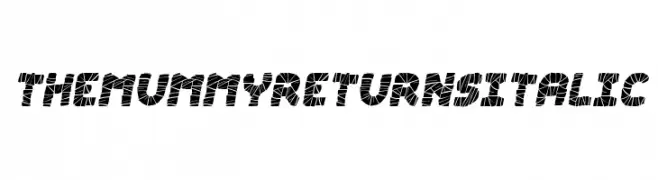
A bold, textured font with a bandage-like design, perfect for thematic and creative projects.
A playful, mummy-themed font with bandage-like wraps, perfect for Halloween designs.
A bold, italic Halloween-themed font with bandage-like patterns.
A bold, italicized decorative font with a textured, bandage-like pattern.